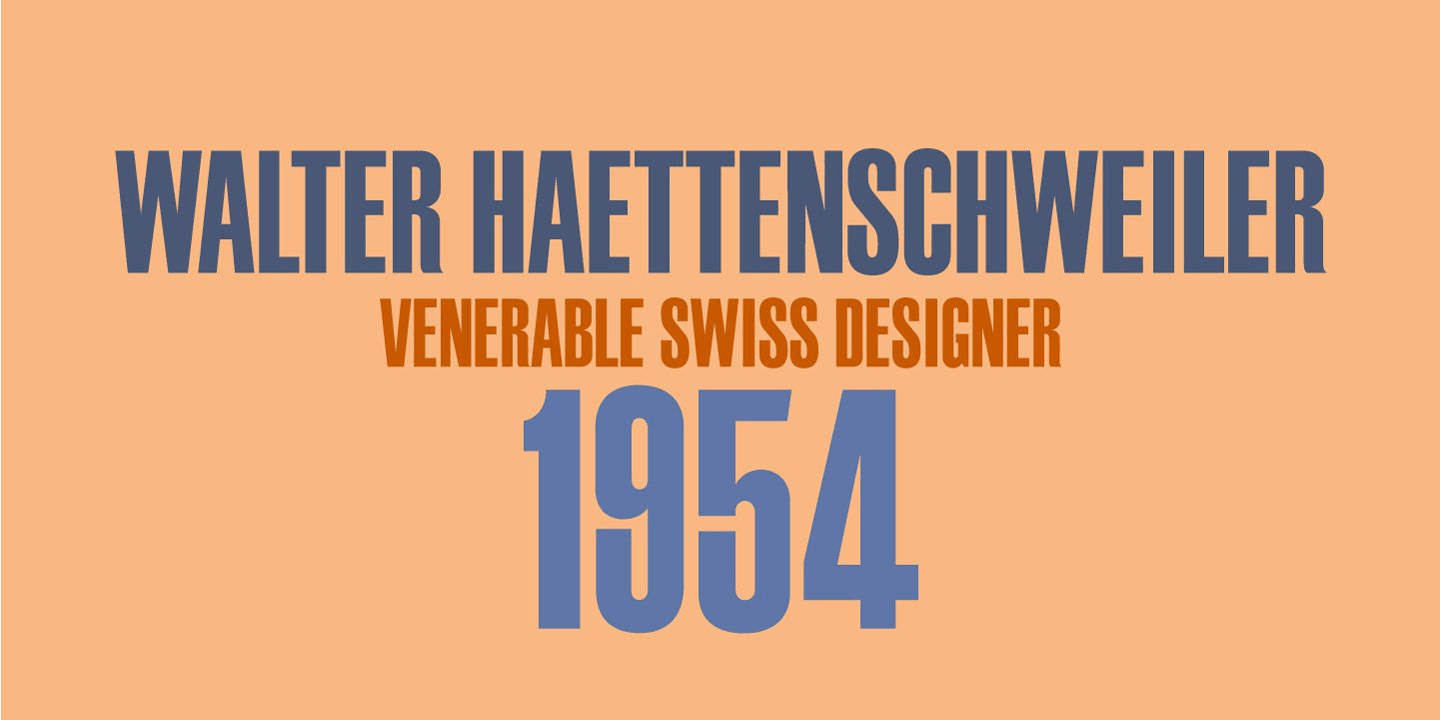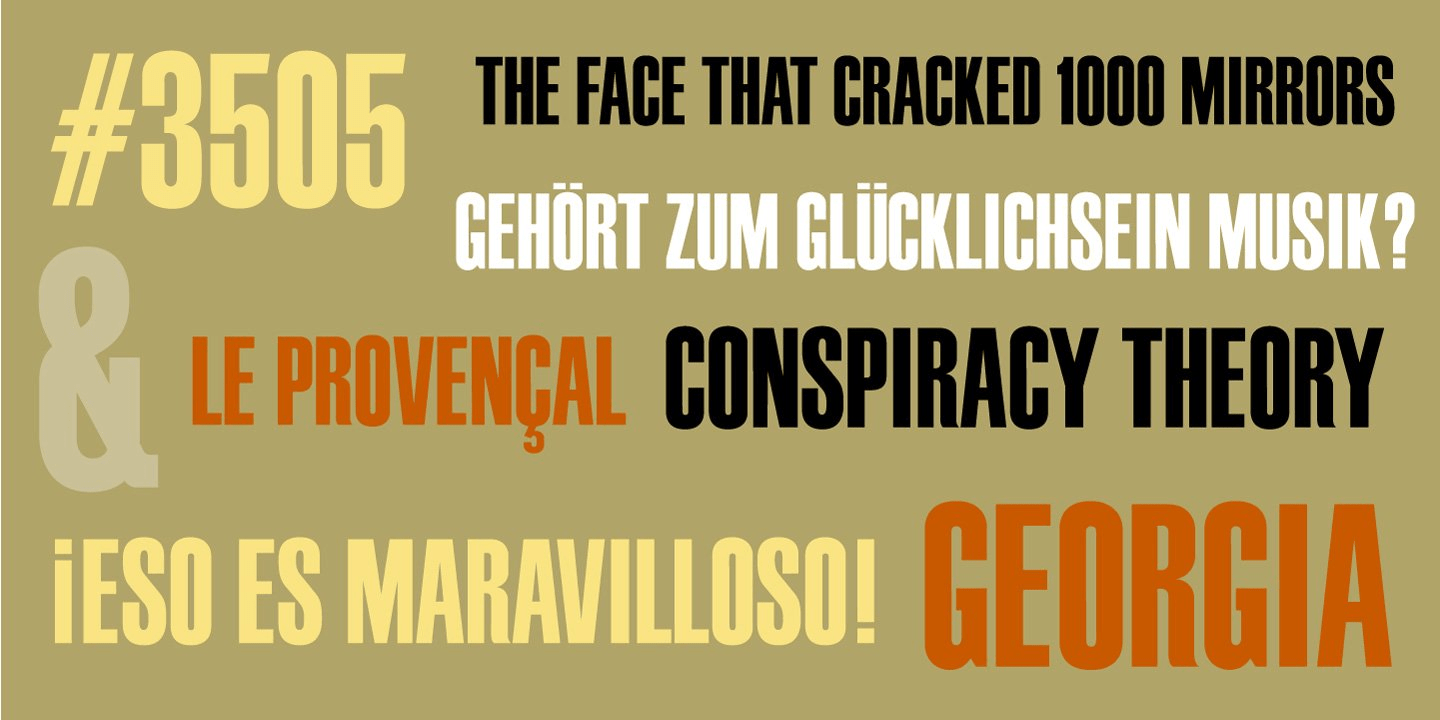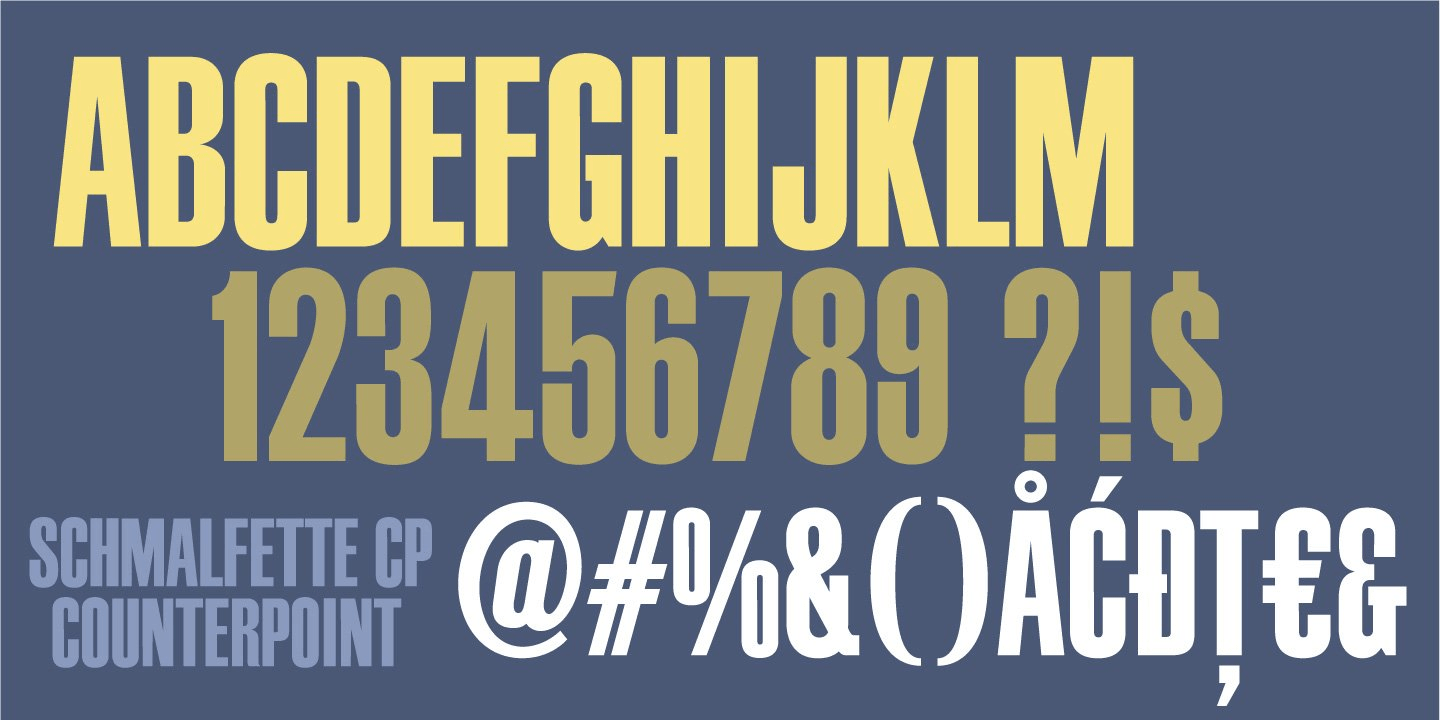
About Schmalfette
SchmalfetteCP is the result of another collaboration between designers Jason Walcott and Rob King. King suggested that Walcott revive this wonderful and somewhat forgotten sans serif typeface from the mid 1950s. Originally designed by Walter Haettenschweiler…